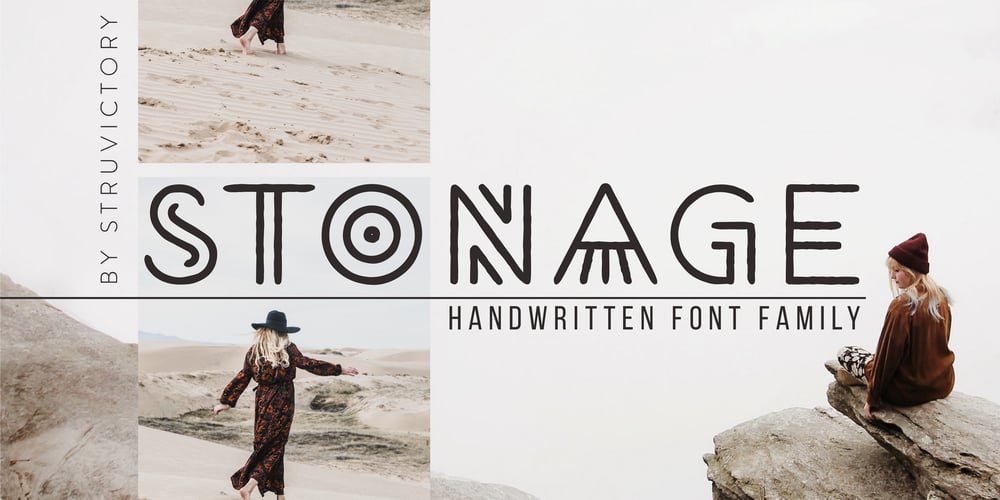
Stonage Font Family was designed by Viktoryia Strukouskaya, Viktor Strukouski and published by Struvictory.art. Stonage contains 2 styles and family package options. Stonage is a minimalistic handwritten font inspired by tribal aesthetics and decorated with geometric patterns. The typeface includes Decorative and Symbol styles. Stonage Decorative is represented by thin line lowercase and ornate uppercase. Use Stonage Symbols to create unique patterns in tribal style.Stonage font family is suitable for craft products branding and packaging (needlework, minimal clothing, organic food), tourism products, surface design, music albums, typographic posters ect. Use individual letters and symbols to create logos and monograms.